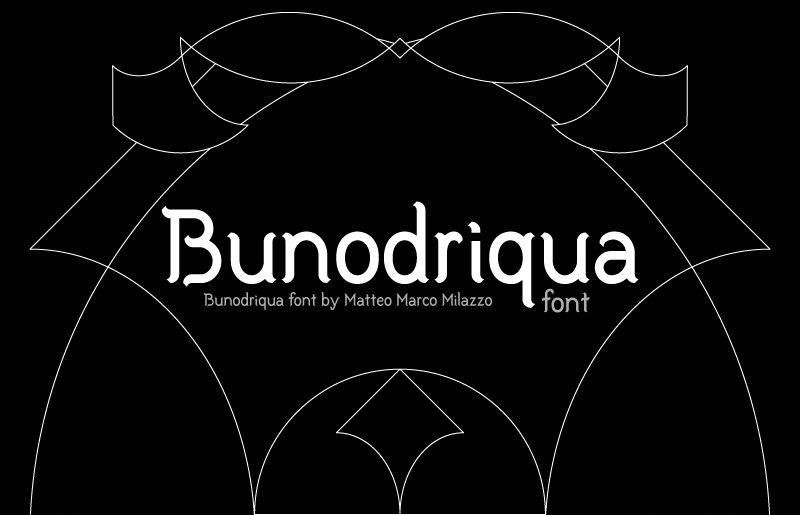
Bunodriqua by Matteo Marco Milazzo is a free ornamental sans serif with tall, rounded letters and dramatic changes in stroke width. Its hooked ends, curled joints, and sharply pinched connections give the lettering an eccentric, almost theatrical silhouette.
An Art Nouveau flavor makes it suited to cabaret posters and boutique packaging, particularly when the lettering becomes part of the surrounding decoration. It also suits album covers and fashion event graphics. The recurring hooks and soft arches suit work inspired by elaborate stagecraft, vintage nightlife, and decorative interiors.